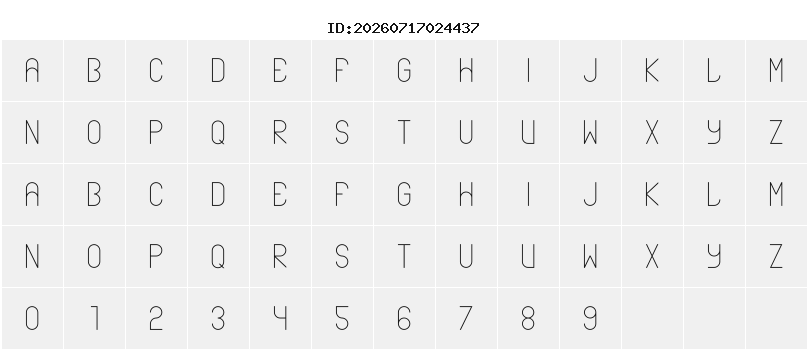
ABLAX Preview
• Font Name: ABLAX
• Full Font Name: ABLAX
About ABLAX.ttf
ABLAX.ttf is a modern, elegant sans-serif font designed for ultimate readability and visual harmony. Perfect for branding, headlines, web design, and print materials.